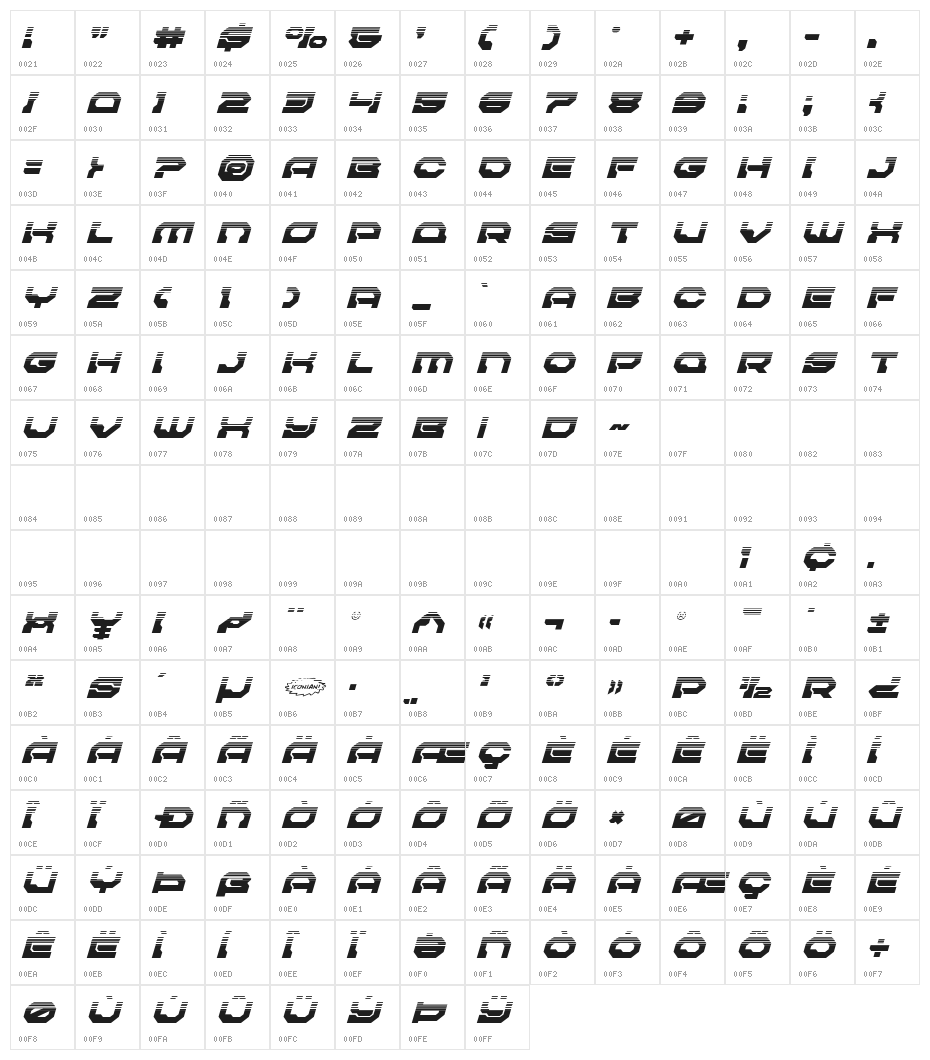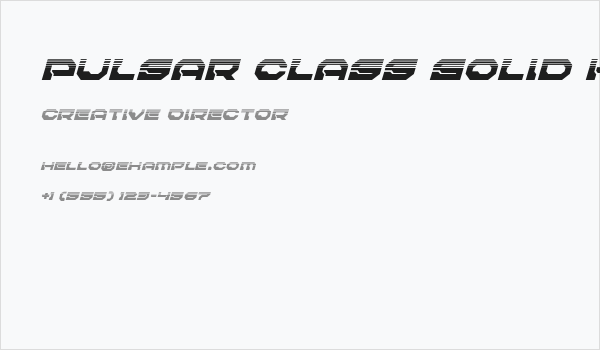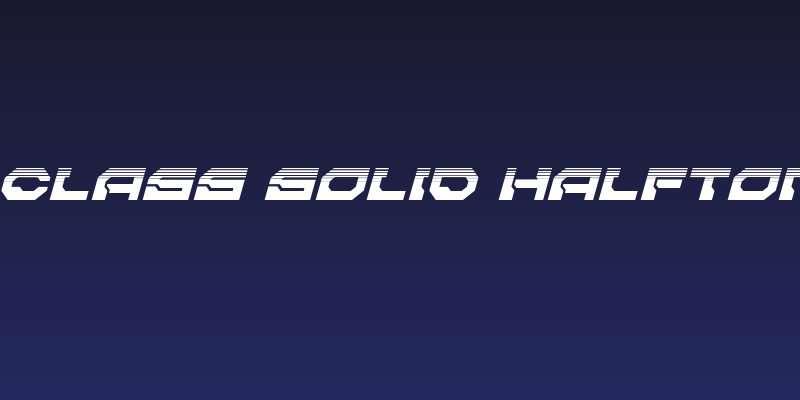
Pulsar Class Solid Halftone Italic Font
Pulsar Class Solid Halftone Italic Description
This font features a futuristic and dynamic design with a solid halftone effect. The characters are bold and italicized, giving them a sense of movement and energy. The geometric shapes and angular lines create a modern and edgy appearance. The font's distinctive style is emphasized by the horizontal stripes that run through each character, adding depth and a sense of speed. This unique design makes it stand out, perfect for projects that require a bold statement.
| Overall Style | Futuristic, Dynamic |
| Proposed Projects | Ideal for sci-fi themed projects, technology branding, video game titles, and futuristic posters. |